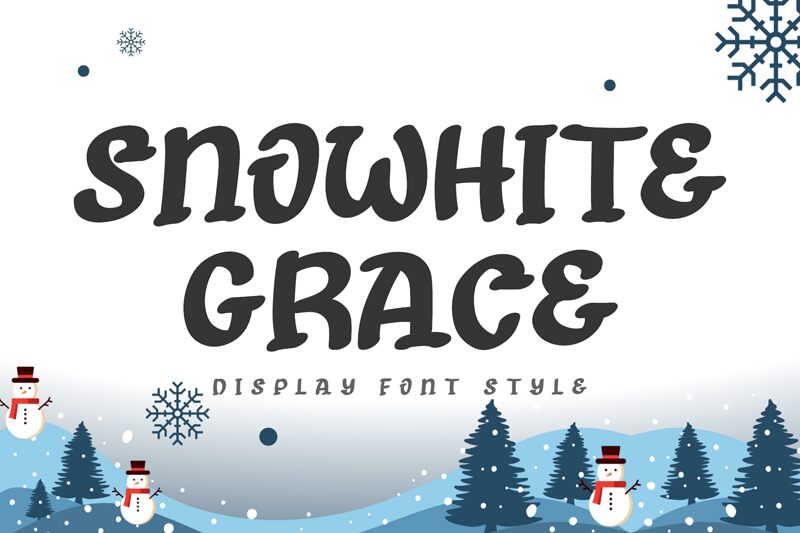
Snowhite Grace font is a script font by Yoga Letter that evokes warmth and nostalgia. Its rounded and whimsical characters radiate uniqueness and fantasy. Snowhite Grace creates visual interest because of its display-focused design and festive associations.
Snowhite Grace is best suited for playful and enchanting designs. This font would lend itself well to birthday invitation cards, fairy tale stories, brands, coffee shop menus, advertising copies, film credits, websites, jean embroideries, quotes, and social media posts.